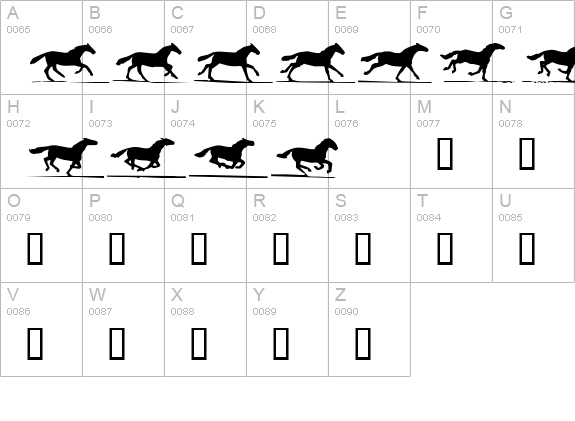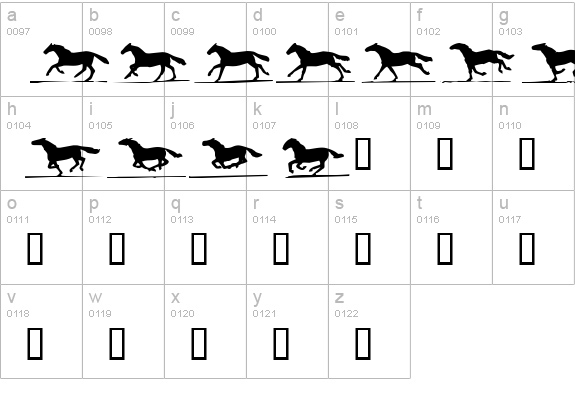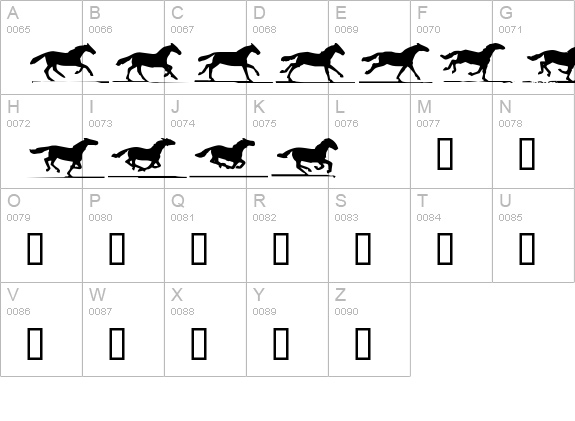
Introducing RunningHorses font - a stunning display typeface that exudes elegance and sophistication. With its sleek lines and graceful curves, RunningHorses is the perfect choice for adding a touch of class to your creative projects. This font is versatile and can be used for a variety of design purposes, from logos and branding to invitations and posters. What's more, RunningHorses font is available for free download at FontsMarket.com. Simply visit the website to get your hands on this beautiful typeface and start using it in your designs today. Don't miss out on the opportunity to elevate your projects with the timeless beauty of RunningHorses font. Download it now and let your creativity run wild!